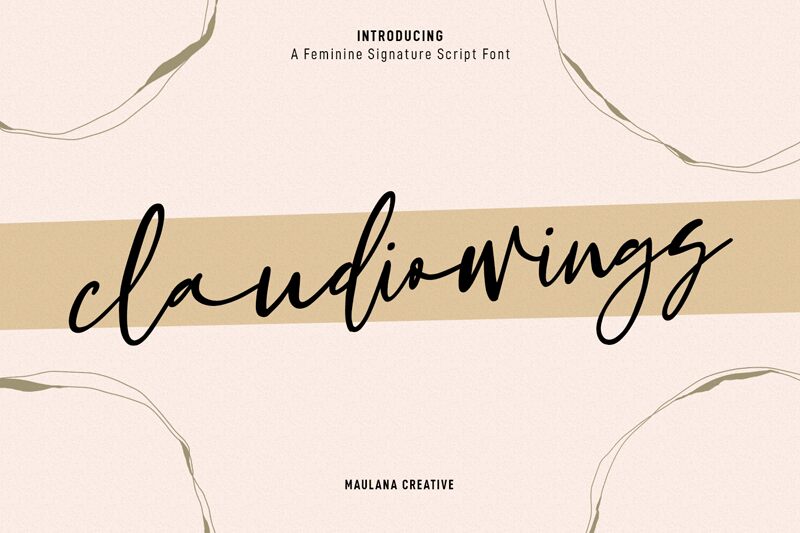
Claudio Wings is a charming handwritten font designed by Maulana Creative. Its semi-light weight adds an elegant touch to any project, making it perfect for wedding invitations, product packaging, and branding materials. With its unique and playful style, Claudio Wings is also versatile enough to use in children's books or whimsical designs. This font will capture your audience's attention with its fluid strokes and graceful curves. Give your projects a personal touch with Claudio Wings and elevate your branding game to new heights!